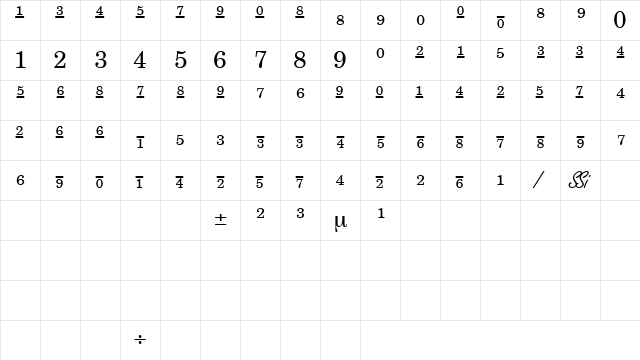
CenturySchoolbkRepriseFracSSK Regular Free Font
CenturySchoolbkRepriseFracSSK Regular
Design Context for CenturySchoolbkRepriseFracSSK
CenturySchoolbkRepriseFracSSK is a composed and adaptable typeface that performs quietly and consistently across a wide range of design contexts.